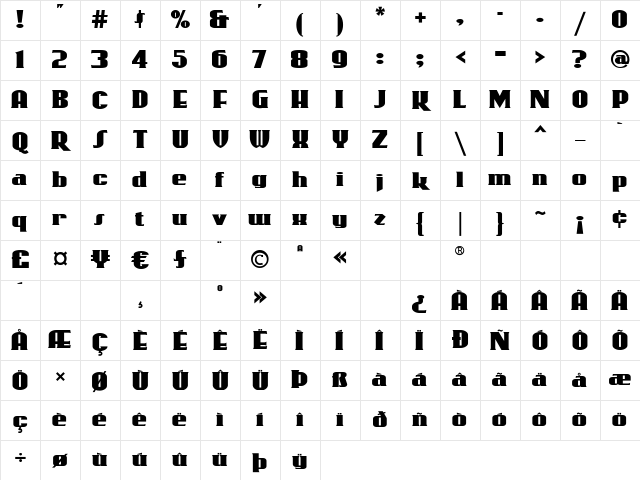
RollerCoaster Regular
RollerCoaster Family
Design Context for RollerCoaster
RollerCoaster is a composed and adaptable typeface that performs quietly and consistently across a wide range of design contexts.